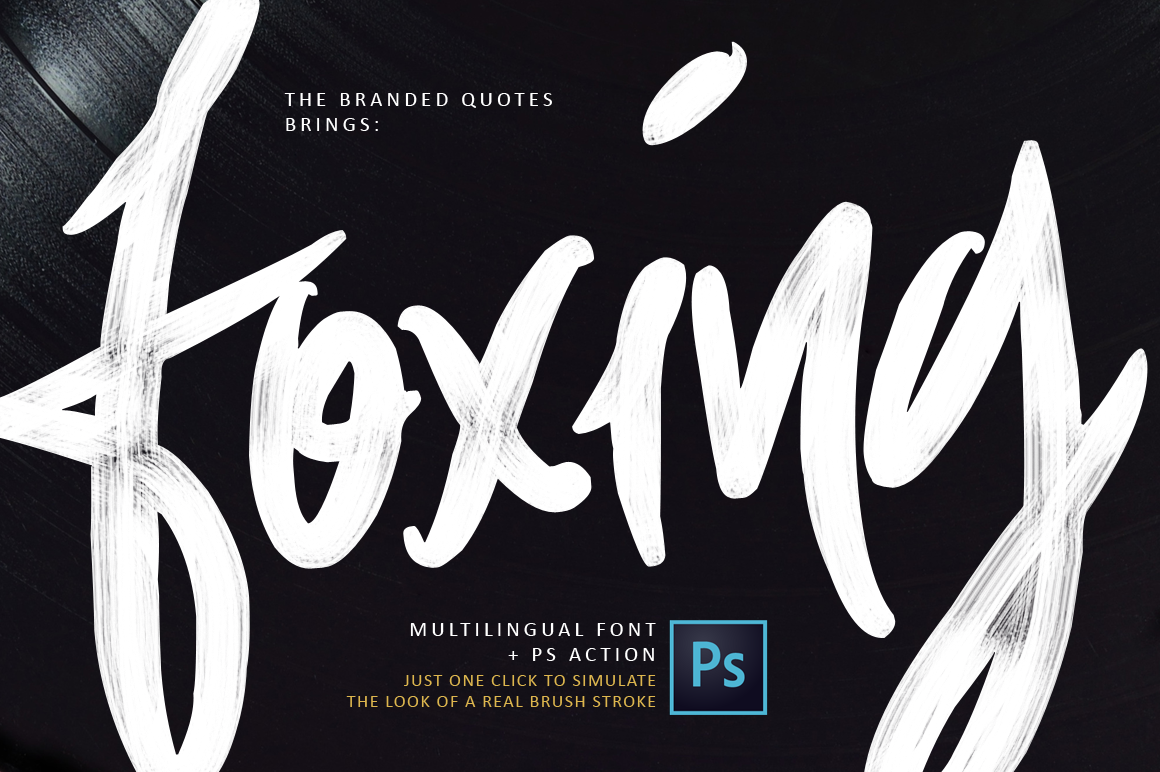
Foxing Font + PS Action
The Branded Quotes is bringing something fresh to the table! An all new idea as to how your typography be displayed.
Foxing font is a hybrid of the street calligraphy and the gorgeousness of a script font. Curvy and tough!
Now this is the game-changer, Foxing PS Action! A single-click effect that changes a normal font into a realistic hand-brushed typography. Yes, for real.